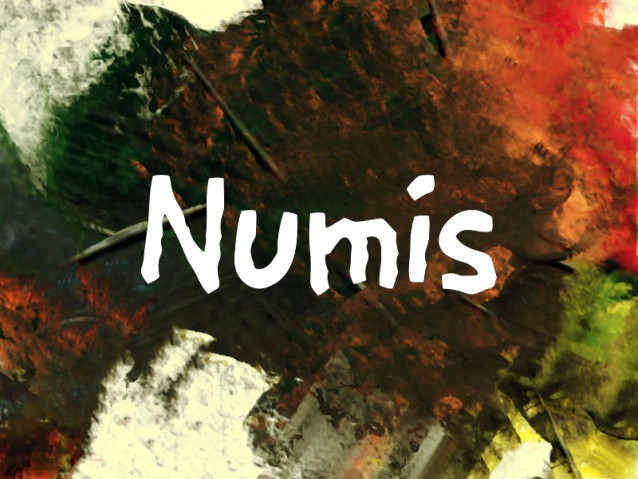
Numis Font
wNumis Font is a unique display font that captures the raw, expressive energy of hand-drawn lettering. Designed with a perfect balance between organic textures and modern aesthetics, this typeface is meant for creators who want their message to feel personal, authentic, and bold.